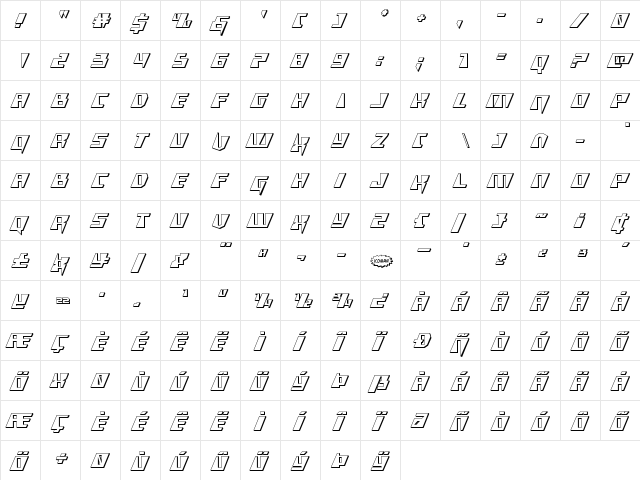
X-Racer 3D Regular
Design Context for X-Racer 3D Typeface
X-Racer 3D is a composed and adaptable typeface that performs quietly and consistently across a wide range of design contexts.